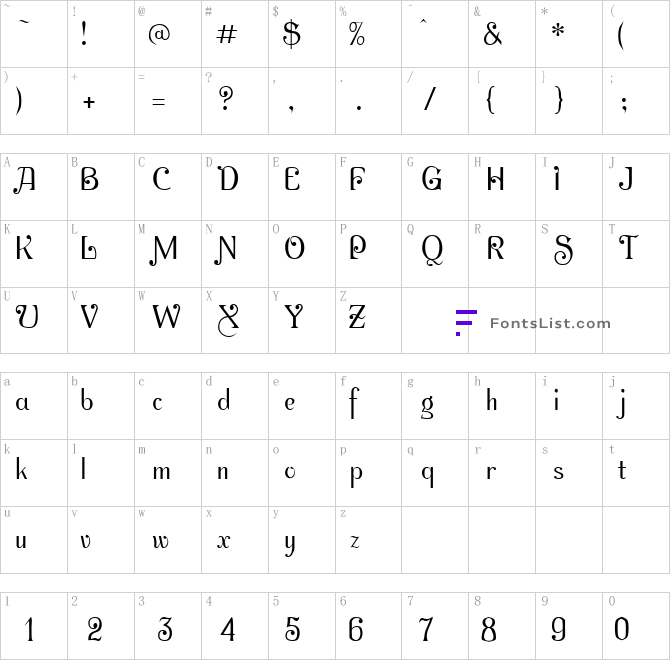
- Font Name:AcornSwash
AcornSwash-Regular.ttf is a very beautiful artistic font, AcornSwash-Regular.ttf is widely used in the design and printing of various books and pictures,AcornSwash-Regular.ttf has a strong visual impact,AcornSwash-Regular.ttf is a commonly used font in newspapers, magazines and books, and is used in posters, e-commerce Poster design, store design, logo design, font design and other fields.AcornSwash-Regular.